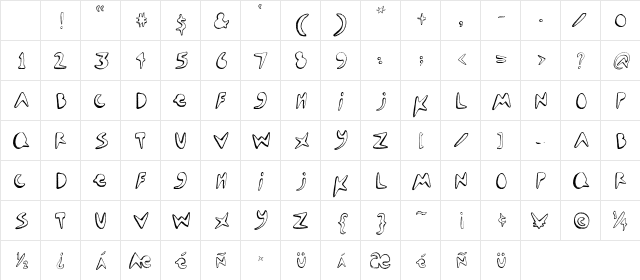
Complete SEA MONSTER Regular glyph index. Displaying only characters natively supported by SEA MONSTER Regular font.
SEA MONSTER is a composed and adaptable typeface that performs quietly and consistently across a wide range of design contexts.